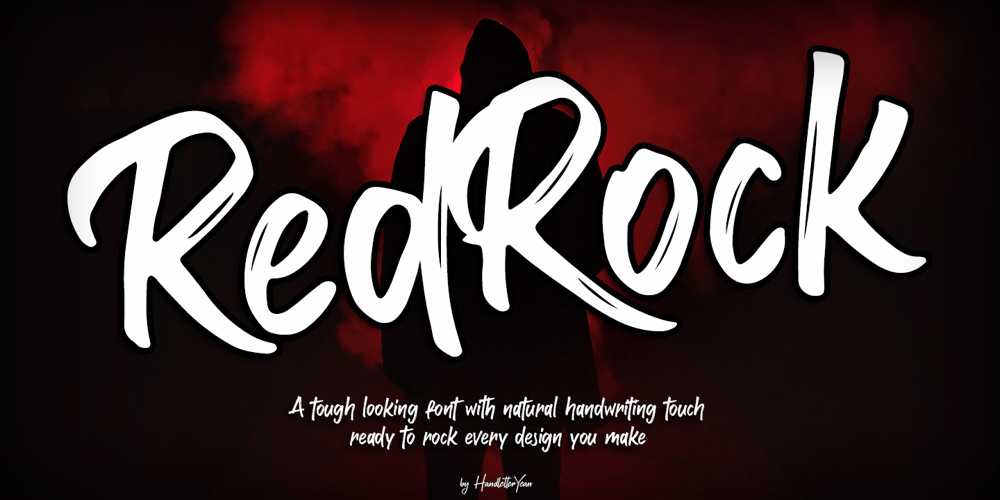
Red Rock Font Family was designed by Yean Aguste and published by HandletterYean. Red Rock contains 1 styles and family package options. Red Rock is a modern and tough-looking font with a strong character. Use it to make any message stand out on all of your design project, posters, business card, t-shirt, packaging, product, etc.Check out our font collection for more great and artistic fonts. Pick your most favorite font and use it as you like to reach your goals.To access the alternate glyphs, you need a program that supports openType features such as Adobe Illustrator CS, Adobe Photoshop CC, Adobe Indesign and CorelDraw.More information about how to access alternate glyphs, check out this link: http://goo.gl/ZT7PqK